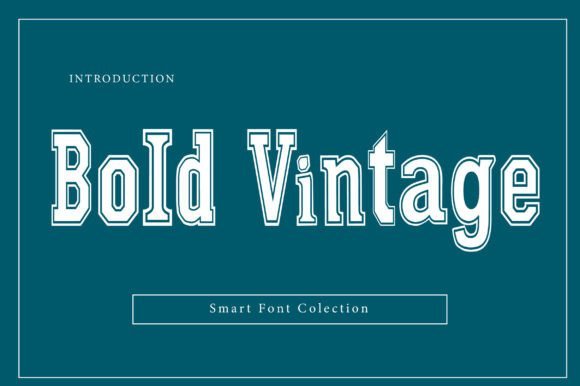
The Perfect Blend of Nostalgia and Style
Do you remember the thrill of digging through your grandfather’s old trunk, uncovering forgotten treasures like vintage posters and antique signage? For designers, those moments can be a treasure trove of inspiration. The classic typography of yesteryear continues to captivate us with its bold, nostalgic charm.
That’s where the Bold Vintage Font comes in – a powerful display typeface inspired by the classic retro and old western typography of the past. This font is designed to stand out in headlines, logos, and branding projects, adding a timeless, classic feel to any design.
For designers, the Bold Vintage Font is a valuable tool, offering a unique blend of style and readability that’s perfect for vintage branding, retro logos, and eye-catching graphic designs. Its versatility shines across both digital and print designs, making it a must-have in any designer’s toolkit.
Bold Vintage Font Key Features
- Unique Characteristics: Distinctive, ornate details and subtle texture add a touch of elegance and sophistication to any design.
- Legibility: Bold Vintage Font is designed for optimal readability, ensuring that the text remains clear and easy to understand even in small sizes.
- Language Support: Supports a wide range of languages, including Latin, Cyrillic, and Greek, making it a versatile choice for global designs.
Designer Review: Bold Vintage Font
Overall, I think Bold Vintage Font is a decent addition to any design project. It’s got a certain charm that can evoke a sense of nostalgia and sophistication. ✨
- Unique, yet familiar feel: The font’s mix of modern and vintage elements makes it stand out from more common font choices.
- High level of legibility: The bold weight is easy to read, even at smaller sizes.
- Good for headings and titles: The font’s larger, bolder letters make it perfect for grabbing attention.
However, there are some limitations to keep in mind:
- Not ideal for body text: The font can be overwhelming when used for extended blocks of text.
- Lack of italic or oblique styles: This can make it difficult to create a balanced typographic hierarchy.
- Not suitable for digital displays: The font may not display well on smaller screens or devices with limited resolution.
Overall, I think Bold Vintage Font is a solid choice for designers looking to add some personality to their projects. While it may not be the best fit for every situation, it’s definitely worth considering when you need a font that’s a little bit different.
Practical Application Guide: Bold Vintage Font
Tip: Use the Bold Vintage Font in conjunction with distressed textures and backgrounds to create a unique and eye-catching design.
Tip: Use the Bold Vintage Font in combination with bold lines and shapes to create a dynamic and modern design.
Tip: Use the Bold Vintage Font in conjunction with vintage-inspired graphics and images to create a nostalgic and retro-themed design.
The Bold Vintage Font is ideal for:
- Creating vintage-inspired posters and advertisements.
- Designing retro-themed websites and social media graphics.
- Adding a touch of nostalgia to modern designs.
Alternatives to Bold Vintage Font for Designers
Playfair Display is a luxurious, high-end font that is perfect for adding a touch of elegance to your designs. It’s ideal for use in luxury branding, high-end packaging, and special event invitations. Compared to Bold Vintage Font, Playfair Display has a more refined and sophisticated feel, making it a great choice for designers who want to convey a sense of luxury and sophistication.
Great Vibes is a beautiful, vintage-inspired font that is perfect for adding a touch of nostalgia to your designs. It’s ideal for use in creative branding, advertising, and editorial design. Compared to Bold Vintage Font, Great Vibes has a more relaxed and casual feel, making it a great choice for designers who want to convey a sense of fun and playfulness.
What is the character set and language support for the Bold Vintage Font?
The Bold Vintage Font supports a wide range of languages, including Latin, Cyrillic, and Greek. The font includes over 600 glyphs, including uppercase and lowercase letters, numerals, punctuation marks, and special characters. The font also includes support for various language-specific characters, such as accented letters and diacritics.